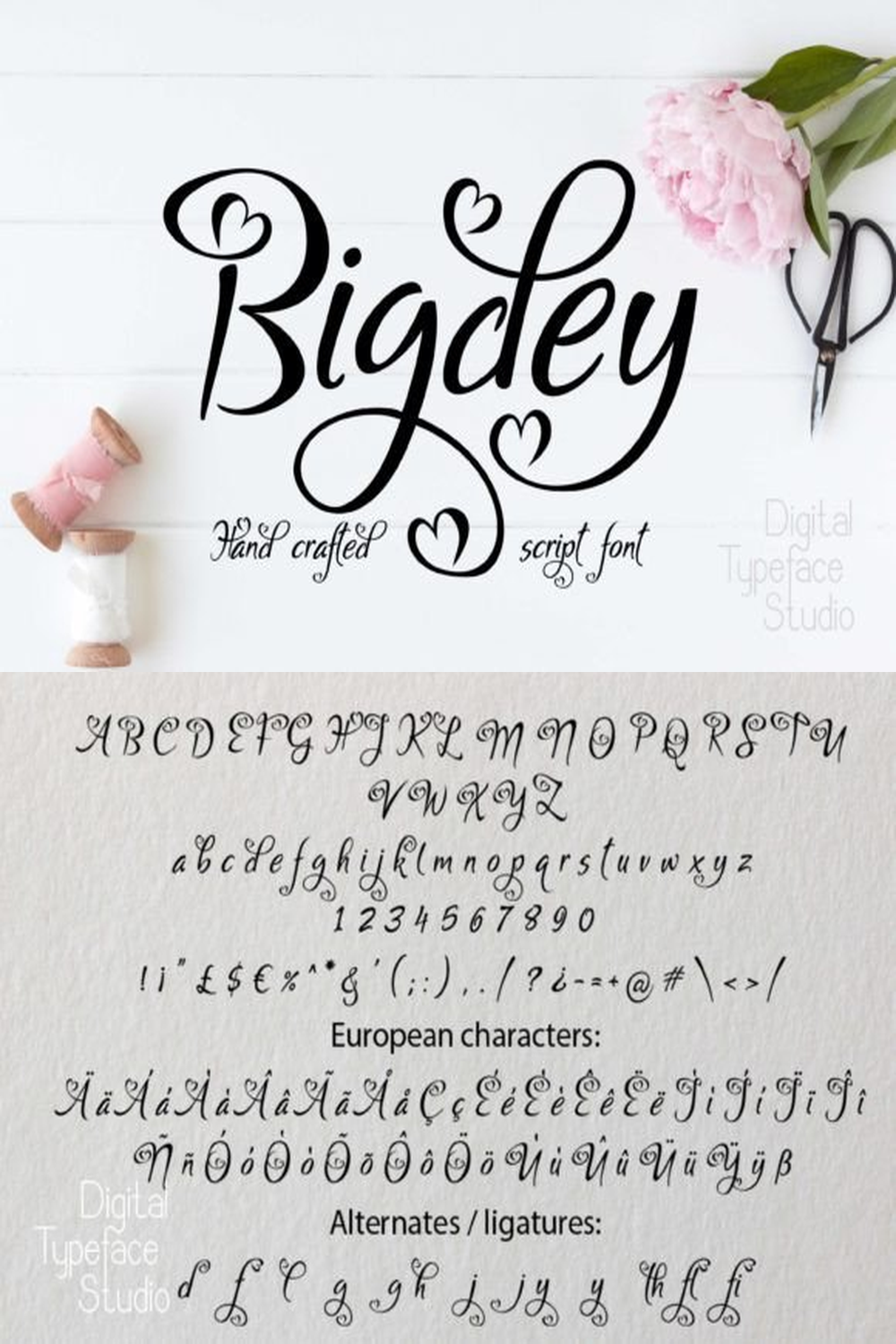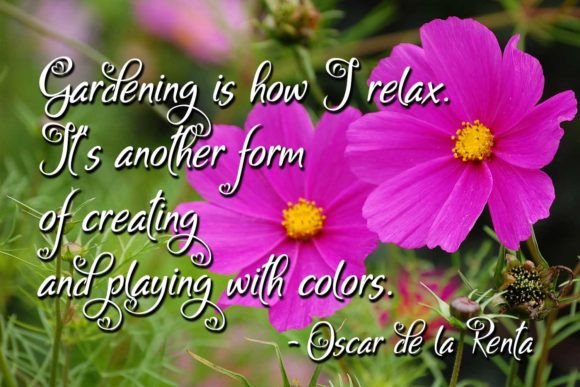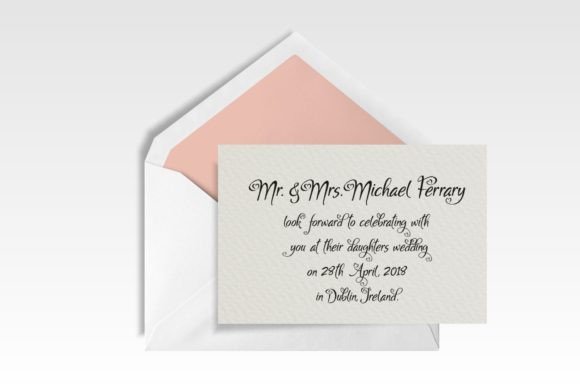
Bigdey Font: A Romantic Script Font for Wedding & Feminine Branding
About the Bigdey Font
The wait is over! The incredible Bigdey Font is now available for your design toolkit. Bigdey is a beautiful and romantic script, with heart flourishes and curved styling. This font dances with a ton of movement, and is sure to add some beauty to your designs and projects.
Bigdey Font Usage Examples